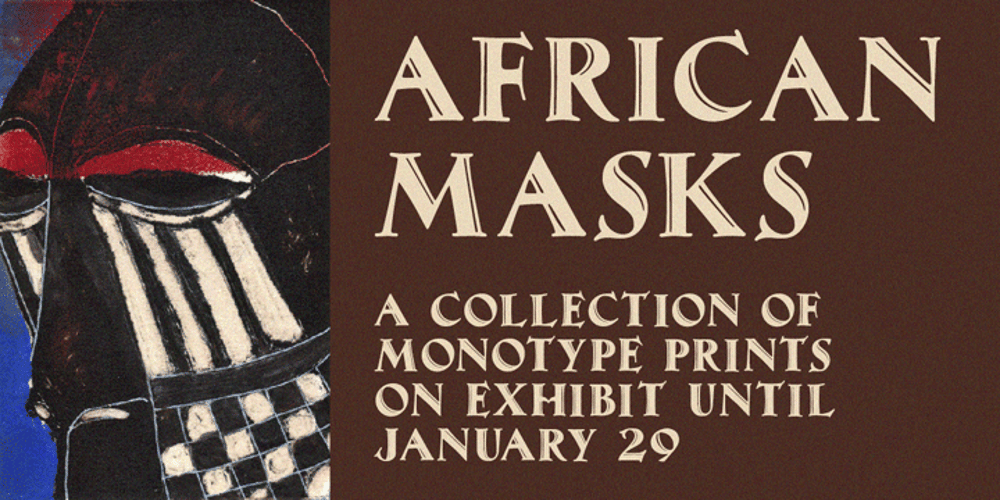
Maximillian CT
Maximillian CT font
Maximillian CT Font Family was designed by Jason Castle and published by CastleType. Maximillian CT contains 1 styles and family package options. Another one of those faces that caught my eye in one of my art deco type books, and I wanted it. After I finished the face, I noticed that there is a more clean-cut version of this face in digital format, but my version retains more of the funkiness of the original drawings.